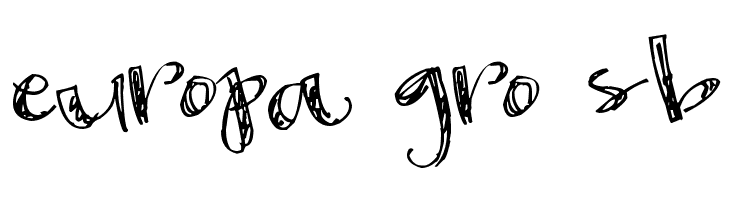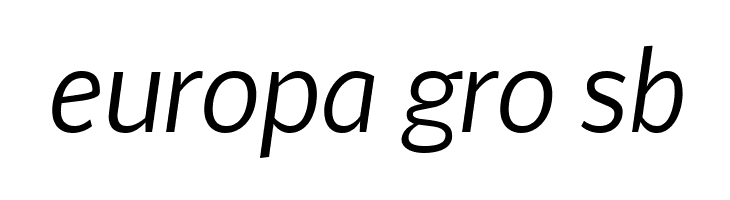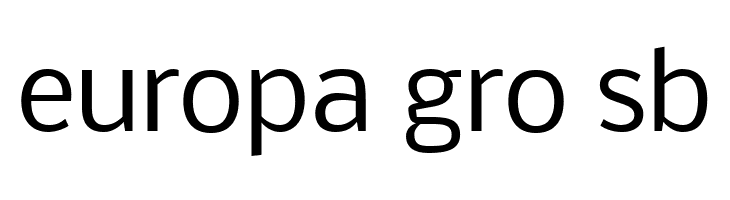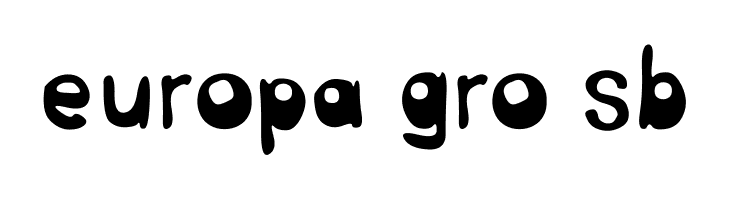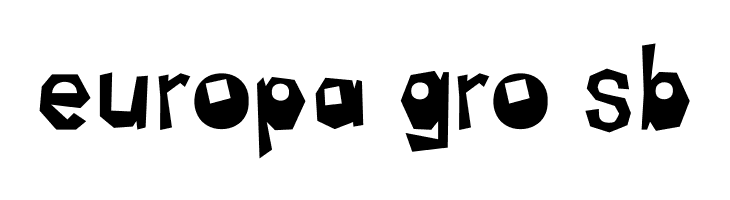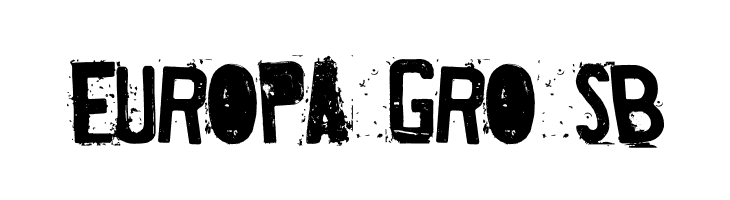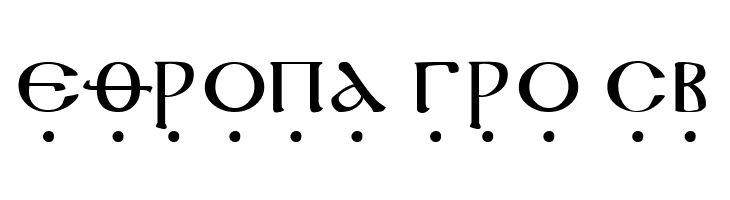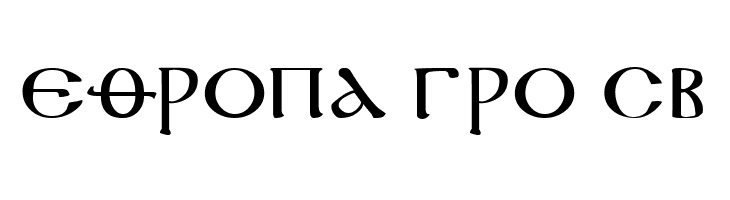
A playful, sketch-like handwritten font with dynamic strokes.
A modern, italic font with clean lines and moderate contrast, offering elegance and readability.
A bold, modern sans-serif font with clean lines and excellent readability.
A modern, clean sans-serif typeface with excellent readability and versatility.
An artistic and abstract collection of letterforms filled with intricate illustrations.
A playful, rounded font with a bold, whimsical design.
A bold, playful font with irregular, jagged edges and a hand-cut feel.
A bold, distressed font with a grunge, industrial aesthetic.